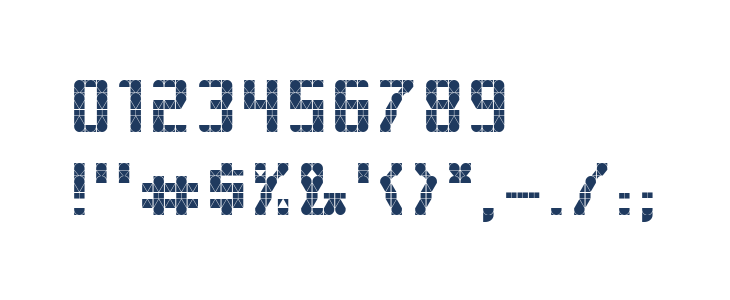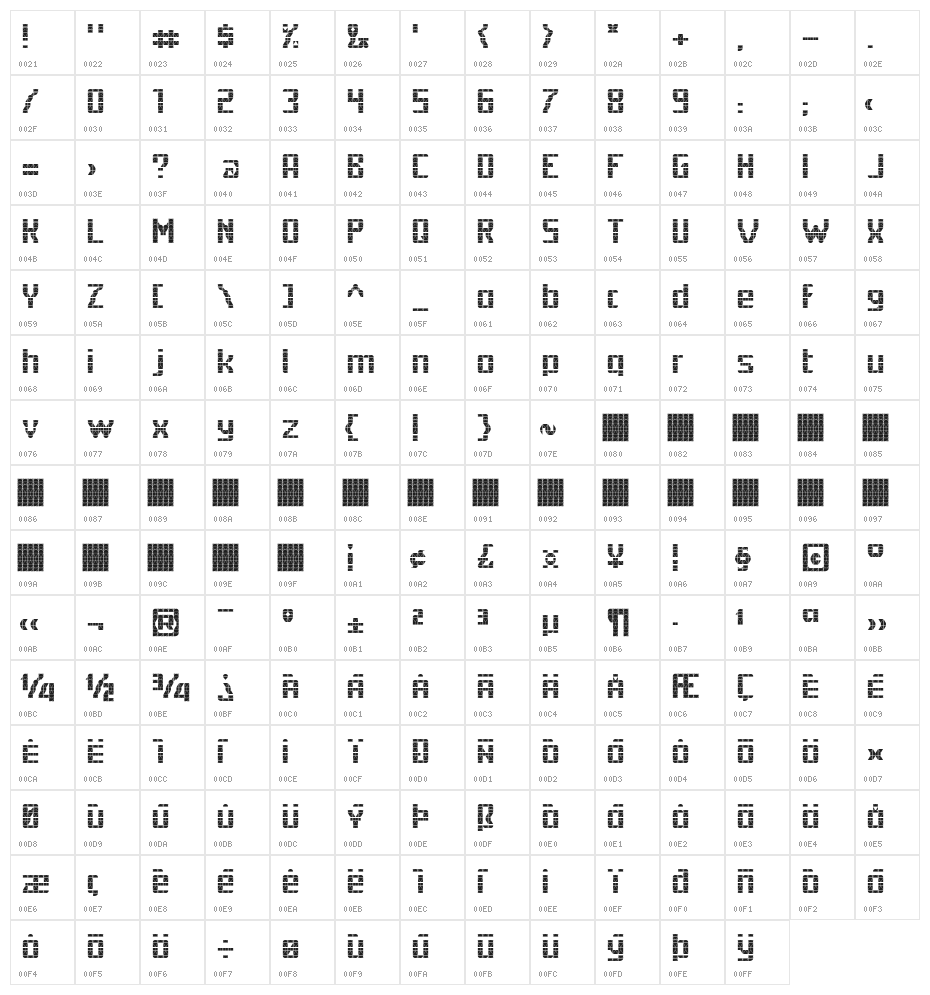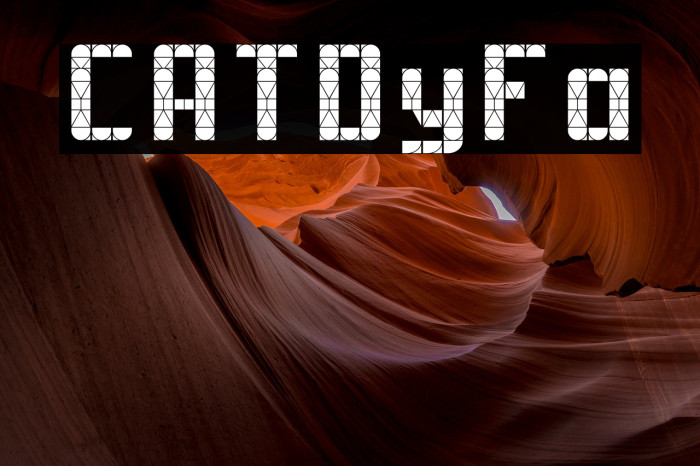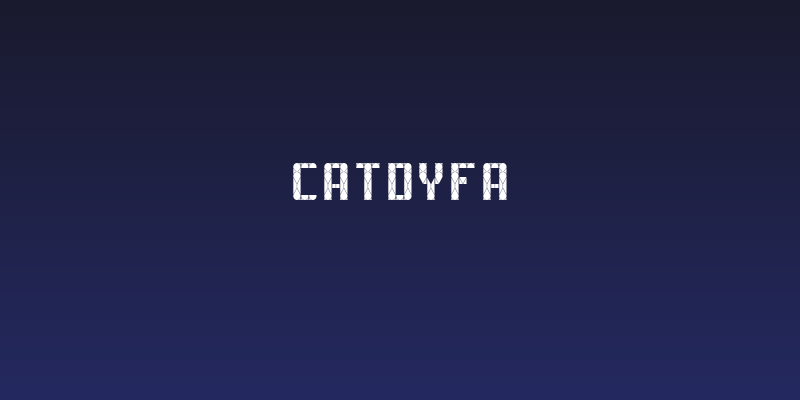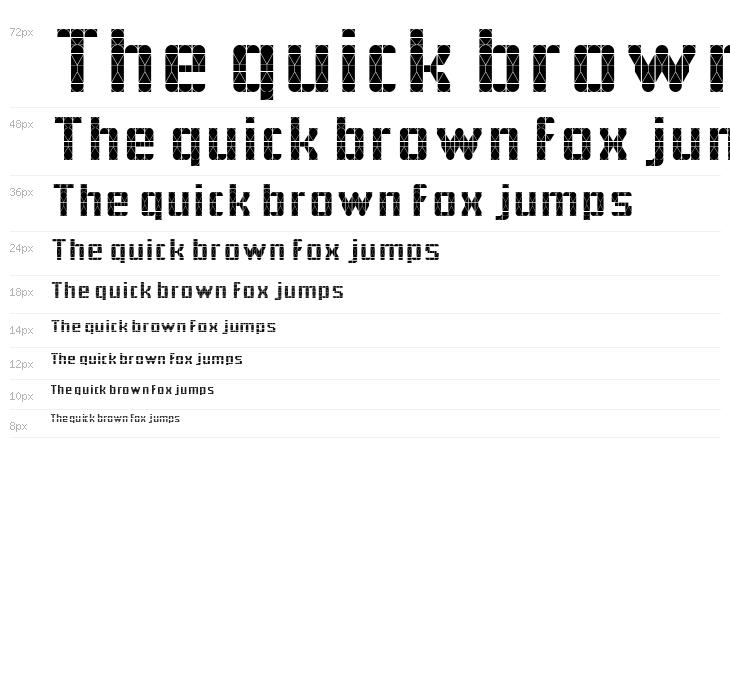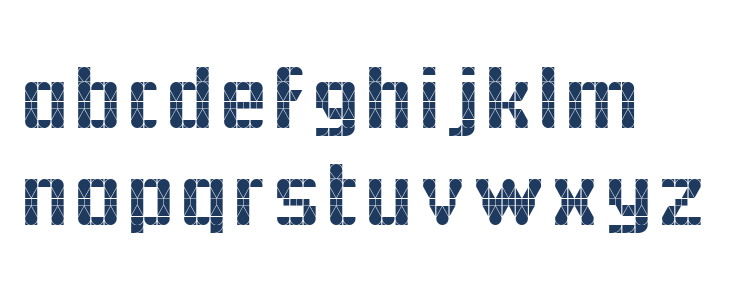
CATDyFa Font
This font features a unique geometric pattern within each character, creating a striking visual effect. The letters are bold and blocky, with a consistent thickness throughout, giving them a strong presence. The geometric pattern consists of intersecting lines forming triangular shapes, adding a layer of complexity and texture. The uppercase and lowercase letters maintain a uniform style, ensuring readability while still being visually interesting. Numbers and special characters are designed with the same geometric pattern, providing a cohesive look across all elements. This font is ideal for projects that require a modern and edgy aesthetic, making it suitable for creative and artistic applications.